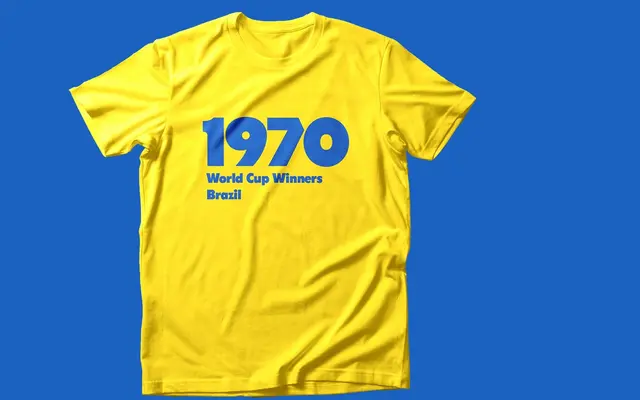
Tondu
A single-weight display typeface drawn from early 20th-century film poster lettering, with upright forms and smooth curves suited to bold print applications.
Inspired by film posters of the early 1900s, Tondu pairs strong upright letterforms with smooth curved details to produce a heavyweight display face that works at scale. Version 2.0, released in 2021, brought the technical standards up to date with over 490 characters including lining figures, fractions and coverage for Western, Southern and Central European languages. Well suited to apparel, poster and billboard work where a period-inflected boldness is needed.
Tondu is a heavyweight display typeface inspired by early 1900s film poster lettering, with strong upright forms and smooth curved details that place it firmly in the display category with historical serif influences.